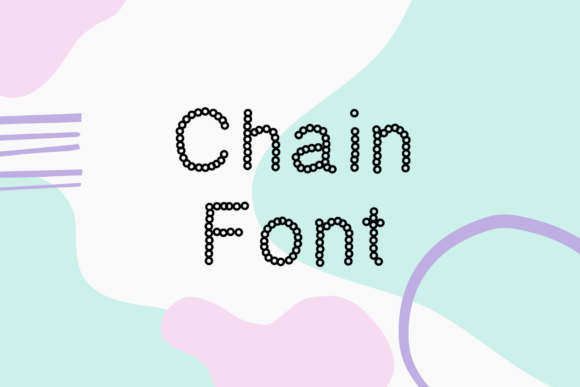
Behold, Chain Font, the decorative masterpiece that will transform your designs into captivating works of art. This exquisite font family, brought to you by the talented fonty88, is the perfect companion for unleashing your creativity.
With its intricate, eye-catching characters, Chain Font is the undisputed champion of posters and headlines. Its playful curves and dynamic lines will add a touch of whimsy and intrigue to any project. Imagine your posters bursting with personality, your headlines dancing with energy, and your designs leaping from the screen with Chain Font as their guiding light.
But don't limit yourself to posters and headlines. Chain Font's versatility extends far beyond these confines. Use it to create stunning logos that will leave a lasting impression, or craft elegant invitations that will make your guests feel truly special. Let your imagination soar as you explore the endless possibilities with Chain Font.